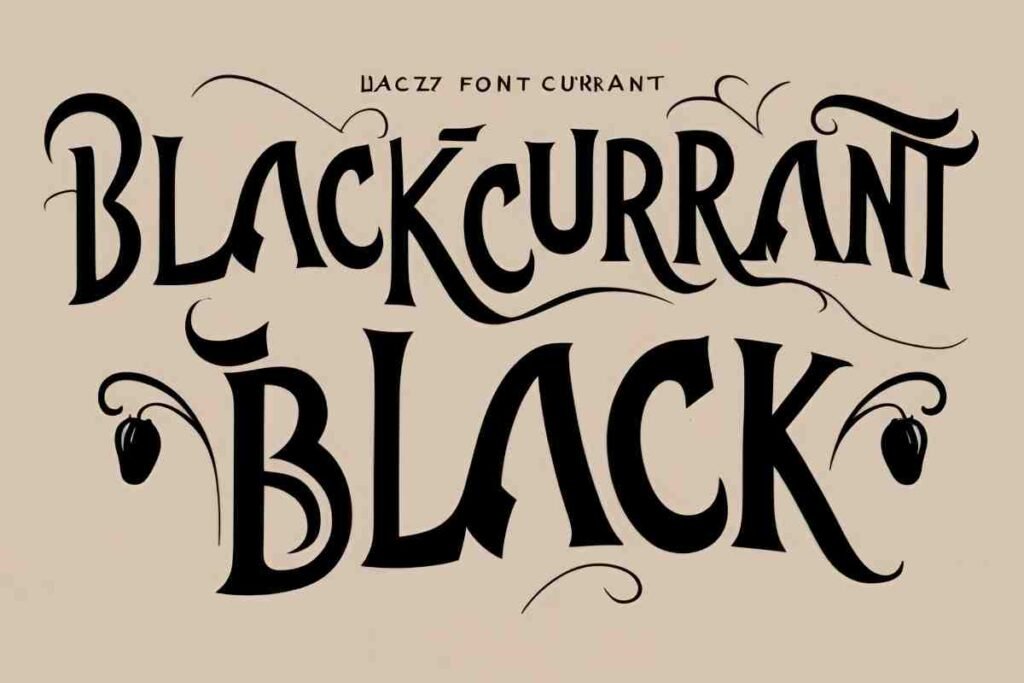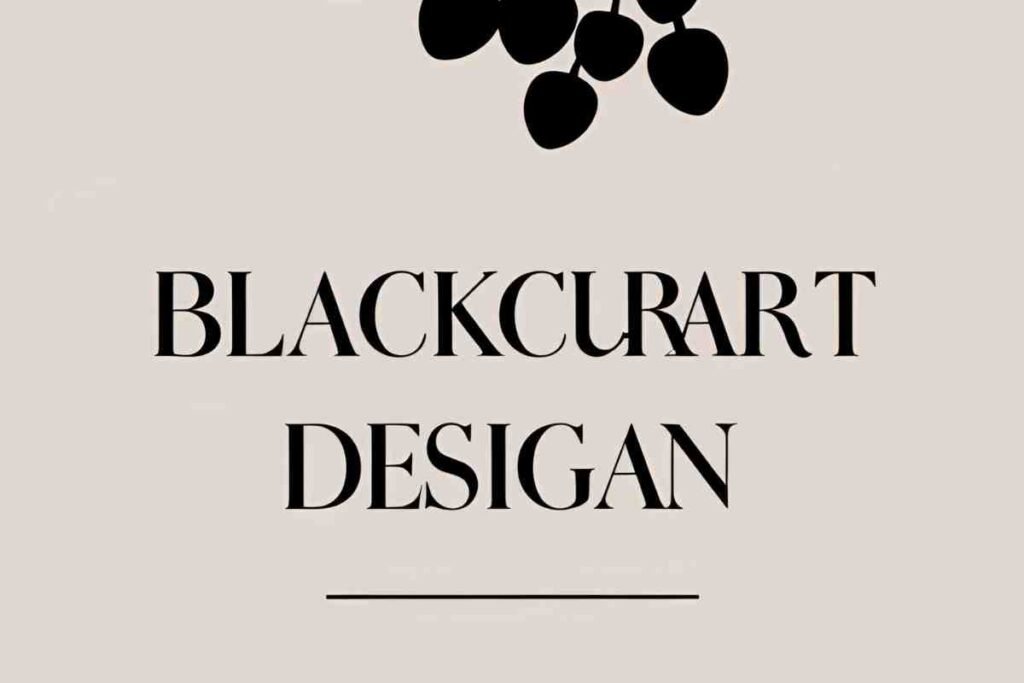
If you’re looking to make a visual impact with bold typography, the Blackcurrant Black Font is a modern classic. Known for its dark elegant typeface and high contrast strokes, it brings a dramatic flair to branding font aesthetics, posters, and editorial layouts.
n this comprehensive guide, we delve into the distinctive features of the Blackcurrant Black Font, offering expert insights on how to incorporate its bold, elegant style into your creative projects for maximum impact
What Is the Blackcurrant Black Font?
The Blackcurrant Black Font is a striking, heavy-weight serif typeface that seamlessly merges a gothic undertone with modern design elements. Its bold, commanding presence evokes both sophistication and nostalgia, making it the perfect choice for creating powerful headings, logos, and attention-grabbing statements.
As part of a distinguished family of black fonts, Blackcurrant exudes confidence and timeless elegance, offering a perfect balance between contemporary style and subtle retro flair.
Whether you’re designing custom fonts for creative professionals, crafting minimalist layouts, or developing retro-inspired branding, this dark-toned type design delivers unmatched versatility, enhanced by its dramatic flair and refined aesthetic.
Blackcurrant Typeface Styles and Variants
This versatile font family offers a rich array of styles, each catering to different creative needs while maintaining a cohesive visual identity. The Blackcurrant Serif Font stands out with its classic elegance, characterized by refined serif strokes that evoke a timeless, sophisticated look.
The Blackcurrant Cursive Font introduces an element of artistry, featuring stylish, flowing lines perfect for decorative uses, invitations, and elegant branding. Meanwhile, the Blackcurrant Black Regular version is a bold, go-to typeface for impactful headlines and display purposes, exuding strength.
Authority together, these variants allow you to effortlessly mix and match styles, offering endless possibilities for creative expression without sacrificing visual harmony
How to Use Blackcurrant Black Font in Design?
Use Blackcurrant Black Font in design to create bold, attention-grabbing headlines and statements, adding a touch of sophistication and modern drama to any project
Posters & Promotional Graphics
This modern gothic font commands immediate attention with its bold, striking presence, making it the perfect choice for eye-catching headlines on posters, flyers, and other high-impact designs.
Branding Projects
Utilize this font as a branding staple for luxury or editorial brands, where its dark, elegant typeface exudes a sense of refined sophistication, perfectly complementing high-end aesthetics and creating a lasting, powerful impression.
Editorial Design
Perfect for magazine mastheads and article titles, the Blackcurrant Black Font effortlessly elevates typographic hierarchy, creating a bold, commanding presence that enhances readability and draws readers’ attention from the first glance.
Social Media & Canva Templates
Designers are increasingly choosing the Blackcurrant Black Font for Canva to craft standout visuals, thanks to its striking presence and versatility. It pairs seamlessly with minimal backgrounds and muted color palettes, creating a sophisticated contrast that enhances the overall design while maintaining a modern, refined aesthetic.
Website Banners
Perfect for hero sections or banners, the Blackcurrant Black Font makes a bold statement, capturing user attention with its striking headlines that demand focus and create an immediate visual impact.
Product Packaging
For brands with a vintage or artistic aesthetic, this bold black font works wonders on packaging design, adding a touch of timeless charm and artistic flair that enhances the overall brand identity and captivates consumers.
Pairing with Minimalist Design
Achieve the perfect balance by pairing the bold Blackcurrant Font with minimalist design elements—thin sans-serifs or delicate scripts work harmoniously to complement its heavy presence, creating a visually dynamic yet refined composition.
How do I pair Blackcurrant font with minimalist designs?
Combine it with thin sans-serifs like Lato or Open Sans for balance.
What makes the Blackcurrant font modern and stylish?
Its heavy weight, clean lines, and subtle gothic touches make it stand out in modern typography trends.
Are there alternatives to Blackcurrant Black Font?
Yes, fonts like Anton, Playfair Display, and Oswald are excellent alternatives for bold, modern designs.